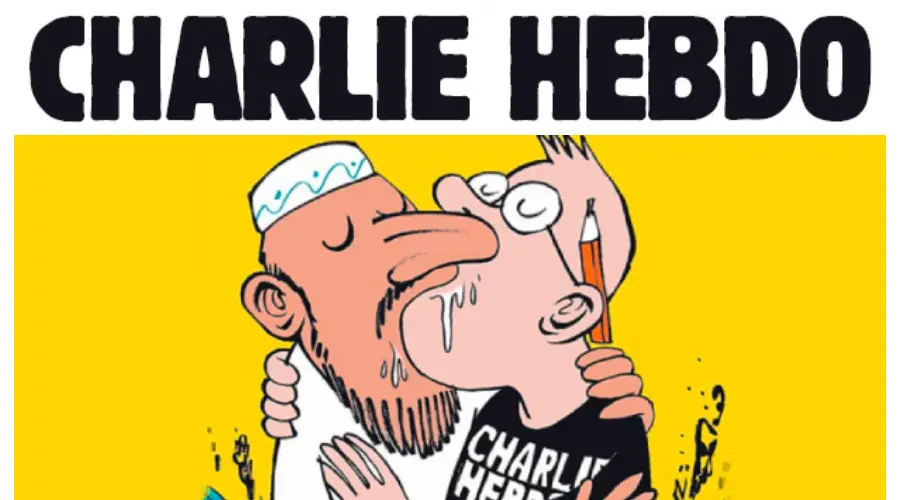
The Charlie Hebdo font is closely associated with the iconic logo of the French satirical newspaper, Charlie Hebdo. The newspaper, known for its bold and controversial content, uses a distinctive typeface that reflects its rebellious and unapologetic identity. The font used in the logo is Block Berthold Condensed Regular, a classic and bold condensed typeface that exudes strength and impact.
Similar Fonts:
Block Berthold Condensed Regular β This is the original font used in the Charlie Hebdo logo. Itβs a bold, condensed typeface with a strong presence.
Early Man by Franco Fernandez β A modern alternative with a similar bold and condensed style, perfect for creating a striking visual impact.
These fonts are ideal for designs that require a bold, attention-grabbing aesthetic, similar to the Charlie Hebdo brand.